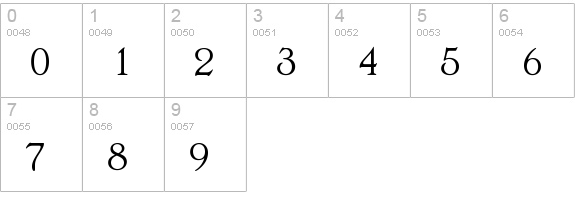
EdwardianEF-Light is a refined, elegant variant in the EdwardianEF typeface family \xE2\x80\x94 well suited to elegant body text, refined sub-headings, and luxury branding.
EdwardianEF-Light font is a captivating and elegant typeface that exudes a sense of sophistication and grace. It beautifully captures the essence of the Edwardian era with its delicate and intricate letterforms. The font's light weight creates a sense of airiness and subtlety, making it perfect for projects that require a touch of refinement. With its clean lines and graceful curves, EdwardianEF-Light font is incredibly versatile and can be used in a wide range of design projects. Whether it's wedding invitations, formal documents, or branding materials, this font will add a touch of timeless elegance to any piece of work. One of the best things about EdwardianEF-Light font is that it is free! Yes, you read that right. This stunning font is freely available to download at FontsMarket.com. You can access this font with just a few clicks, and it's ready to be used in your creative endeavors. It's a wonderful opportunity to enhance your designs without worrying about breaking the bank. So, what are you waiting for? Download EdwardianEF-Light font from FontsMarket.com and add a touch of class and sophistication to your projects. Whether you're a professional designer or someone who simply appreciates beautiful typography, this font is sure to impress. Embrace the elegance of the Edwardian era and let your creativity soar with this exquisite font.